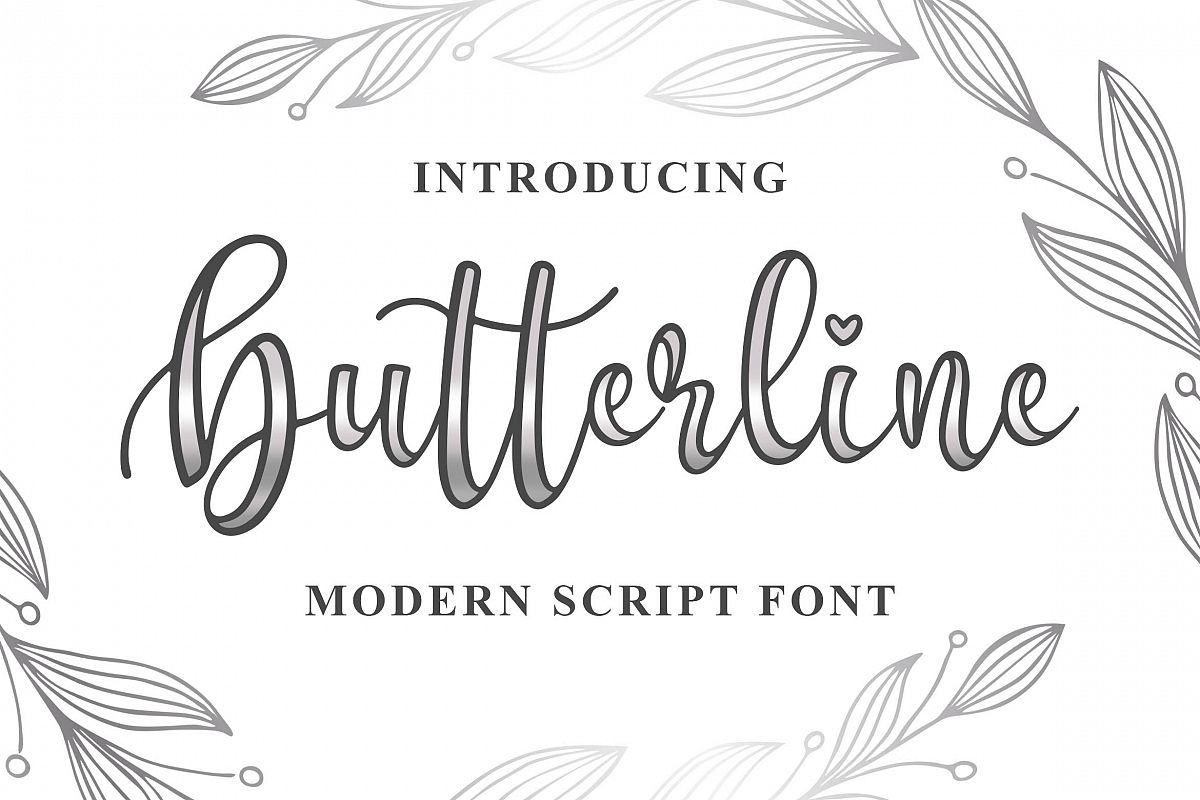
Introducing of our new product the name is Butterline Modern Script Font. Butterline inspired by Beauty modern script style this font is a fun theme very good for signature, poster, fashion, wedding, branding etc
MULTILINGUAL ACCENT :ŽžŠŒšŸÀÁÂÃÄÅÆÇÈÉÊËÌÍÎÏÐŁÑÒÓÔÕÖØÙÚÛÜÝßàáâãäåæçèéêëìíîïłñòóôõöøùúûüýÿ